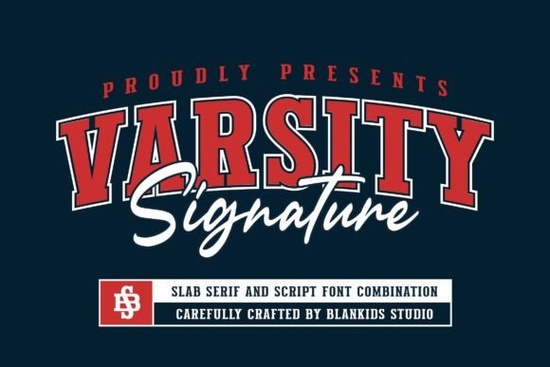
If you are looking for a typeface that instantly communicates team spirit, energy, and collegiate pride, you have likely considered a varsity style. The Varsity Signature Font is designed specifically to bring that classic American university aesthetic to your creative projects. Whether you are creating a logo for a local sports league, designing custom apparel for a school event, or building a brand identity that relies on tradition and strength, this font combination offers the bold presence you need.
Unlike standard sans-serif fonts, this typeface features the distinct cut-out style and slab serifs associated with university lettering. It is not just about the letters themselves; it is about the feeling they evoke. When customers see this style, they immediately think of athletics, competition, and school spirit. This makes it an incredibly powerful tool for print-on-demand sellers and small business owners who want to tap into that nostalgic yet energetic market.
What kind of projects work best with this style?
The versatility of this font lies in its ability to handle heavy-duty branding tasks. Because the letters are thick and impactful, they remain legible even when scaled down or viewed from a distance. This is crucial for items like watermarks on photos or logos on product packaging. If you are a crafter making vinyl decals for car windows or water bottles, the solid structure of these glyphs ensures that the intricate cut-out details do not get lost during the weeding process.
For those working in the print-on-demand space, this font is a staple for t-shirt designs. It pairs exceptionally well with graphics of mascots, shields, or athletic equipment. However, it is not limited to sports. You can use it for bakery logos that want to appear established and trustworthy, or for music posters that need a loud, attention-grabbing headline. If your design requires a bit more grit, you might consider looking at worn textures to layer over the top, giving the clean vector lines a vintage, used look.
How do you pair varsity fonts with other typefaces?
One common mistake designers make is using a bold display font for everything. While the Varsity Signature Font is excellent for headlines, it can be overwhelming if used for long paragraphs of text. The key to a professional design is contrast. You want to balance the heavy, blocky nature of the varsity letters with something lighter or more fluid.
A classic combination is pairing this style with a handwritten script. The rigidity of the college font contrasts beautifully with the flow of cursive. For example, if you are designing a wedding invitation for a sports-loving couple, using this font for the date and a script for the names creates a fun, personalized vibe. You can explore elegant script pairings to find a secondary font that softens the overall look of your design.
Alternatively, if you want to double down on the boldness, you can pair it with a simple, clean sans-serif for body text. This keeps the focus on the headline while ensuring the informational text is easy to read. Avoid pairing it with other highly decorative fonts, as this can make the design look cluttered and hard to decipher.
Is this font suitable for non-sports branding?
Absolutely. While the roots of this style are in athletics, the aesthetic has been adopted by many industries. Coffee shops, barbershops, and craft breweries often use varsity-style typography to signal that they are local, community-focused, and authentic. The font suggests a sense of heritage and reliability.
If you are branding a business that wants to feel rugged or outdoorsy, this font fits right in. It shares some DNA with retro western themes, as both styles rely on strong slab serifs and a sturdy presence. By adjusting the color palette perhaps using earth tones instead of traditional school colors you can shift the perception from "high school football" to "artisanal goods."
What technical features are included?
When you download this product, you are getting a complete toolkit for typography. It includes a full set of uppercase and lowercase letters, which is essential for creating natural-looking sentences rather than just shouting in all caps. It also includes numerals and punctuation, allowing you to create dates, prices, and contact information that match the brand style perfectly.
The sporty design is consistent across every character, ensuring that your kerning and spacing look professional without needing excessive manual adjustment. For designers who enjoy experimenting with different vibes, sometimes you need chunky lettering styles that are a bit more irregular or fun. However, for a polished, uniform look, the consistency of this varsity set is superior.
It is also worth noting that while this font is structured, it still has personality. If you find it too rigid for a specific project, you might browse through playful display options to see if a rounder, softer font suits your specific audience better. But for authority and impact, the varsity style remains unmatched.